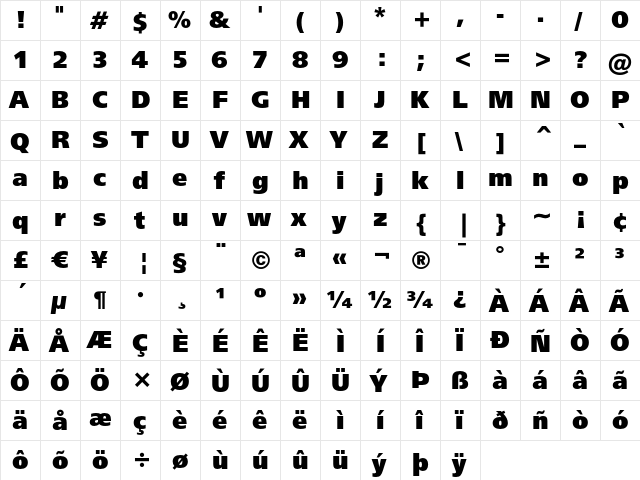
Humanist 777 Extra Black
Design Context for Humanist 777 Typeface
Humanist 777 offers clean, dependable letterforms without strong stylistic allegiance, making it a practical choice for designers who need flexibility.